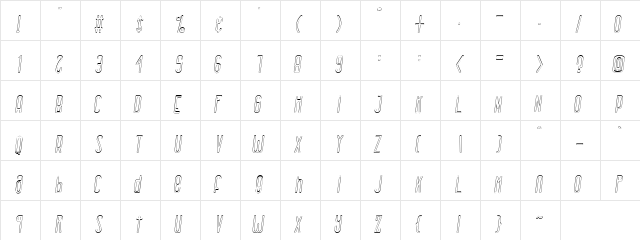
Rhantica Regular Ital Out
| Foundry | Stefie Justprince |
| Designer | Stefie Justprince |
Design Context for Rhantica Typeface
Rhantica offers clean, dependable letterforms without strong stylistic allegiance, making it a practical choice for designers who need flexibility.